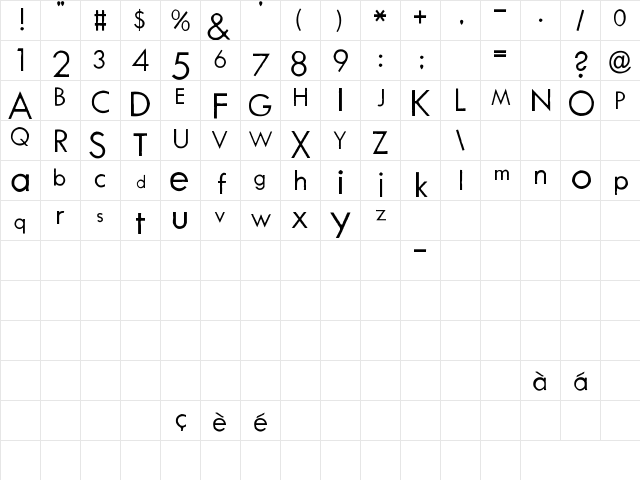
2Peas Favorite Things 2Peas Favorite Things Font Preview
Design Context for 2Peas Favorite Things Typeface
2Peas Favorite Things offers clean, dependable letterforms without strong stylistic allegiance, making it a practical choice for designers who need flexibility. The delicate stroke weight brings airiness and refinement to layouts.